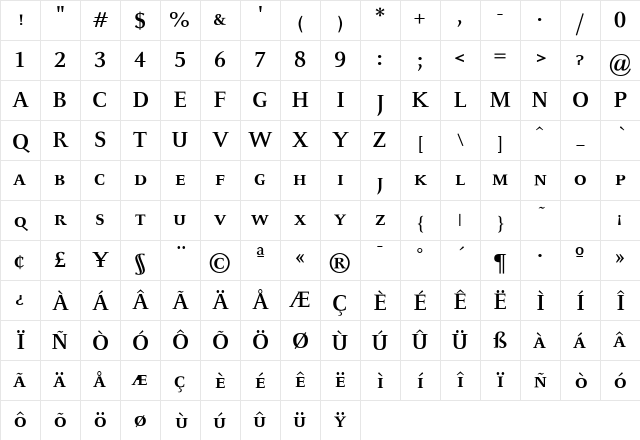
CelesteCaps Bold Free Font
CelesteCaps Bold
Foundry: Copr. Chris Burke
Design Context for CelesteCaps
CelesteCaps is a composed and adaptable typeface that performs quietly and consistently across a wide range of design contexts. Its bold stroke weight gives it real presence on the page.